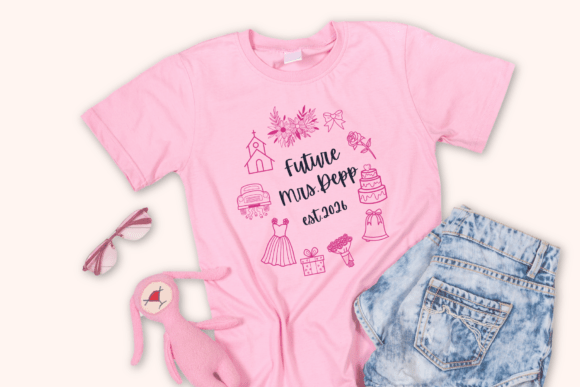
Wedding Doodle Font
Wedding Doodle is a charming typeface with hand-drawn illustrations inspired by weddings. Perfect for wedding-related designs, it also adds a touch of charm and romance to fashion branding. The whimsical illustrations capture the essence of love and celebration, making it an ideal choice for creating a unique and memorable aesthetic.